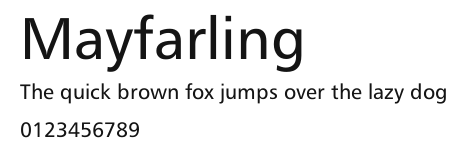
Mayfarling Preview
Mayfarling.ttf is a modern, elegant sans-serif font designed for ultimate readability and visual harmony. Perfect for branding, headlines, web design, and print materials.